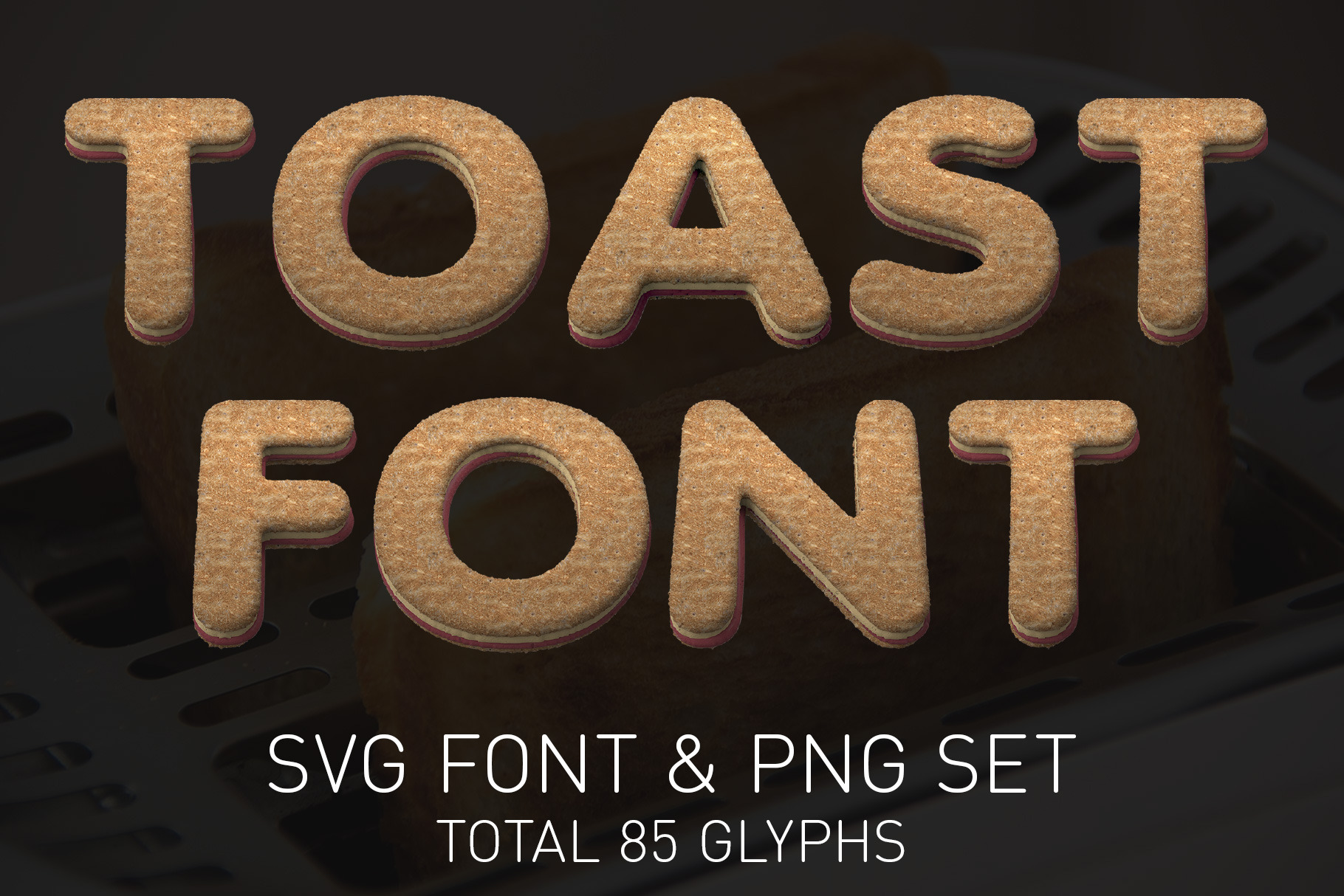
Toast Color Bitmap Font & PNGs
Introducing the Toast Color Bitmap SVG Font and transparent PNGs, a unique and creative font that adds a warm and inviting touch to your design projects. Each glyph has been meticulously rendered in 3D software, resulting in a beautiful and lifelike design that captures the essence of toasted bread.
The Toast Color Bitmap SVG Font features 85 beautifully designed glyphs, including uppercase and lowercase letters, as well as a range of punctuation marks and symbols. Each glyph is rendered in a high-quality 2048x2048 pixel resolution transparent PNG format, providing exceptional clarity and detail.
With a height of up to 700 pixels, each character is crisp and well-defined, making this font an ideal choice for a range of design projects, including branding, packaging, and social media graphics. The font is available in OpenType Format (OTF), ensuring cross-platform compatibility across a wide range of design applications.
Whether you're a graphic designer, food blogger, or simply looking to add a touch of warmth and character to your designs, the Toast Color Bitmap SVG Font is the perfect choice.